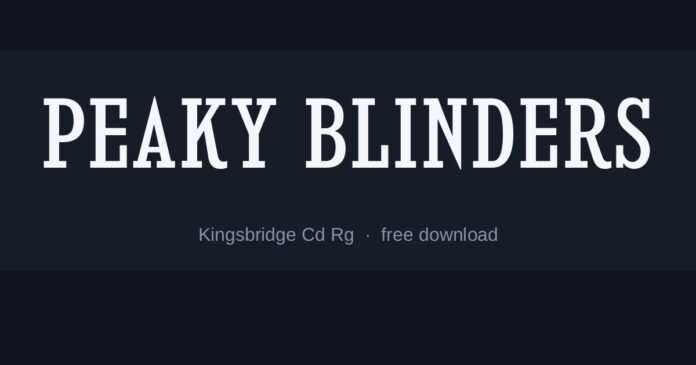
What font is the Peaky Blinders logo?
The title card uses condensed capitals with small flat serifs, spaced wide — a look borrowed from early twentieth-century British signage and newspaper mastheads rather than from any modern typeface.
It is deliberately plain. The period feel comes from the proportions and the spacing, not from decoration.
The fonts here
- Kingsbridge Cd Rg is the closest — a condensed serif with the same narrow, upright proportions.
- Instant Tunes is a serif capital with more contrast, closer to a printed masthead.
- Minya Nouvelle Rg is slightly rougher, useful when you want the letterpress edge.
Where the style comes from
Condensed serifs dominated British printing when column width was expensive and every character had to earn its space. Signwriters copied the printed forms onto shopfronts, which is where the association with the period comes from.
That history is why a wide, comfortable serif reads as wrong here. Narrowness is the period marker.
Setting it well
- Condense and space out — narrow letters set wide apart is the exact combination
- Capitals only, and avoid any face with strong thick-thin contrast, which reads as Victorian rather than Edwardian
- Desaturate: cold grey on near-black matches the grade better than warm sepia
Is this the exact font used for Peaky Blinders?
Not exactly. The original lettering was custom drawn or is not publicly licensed, so the fonts here are close recreations. Kingsbridge Cd Rg is the nearest match we have found.